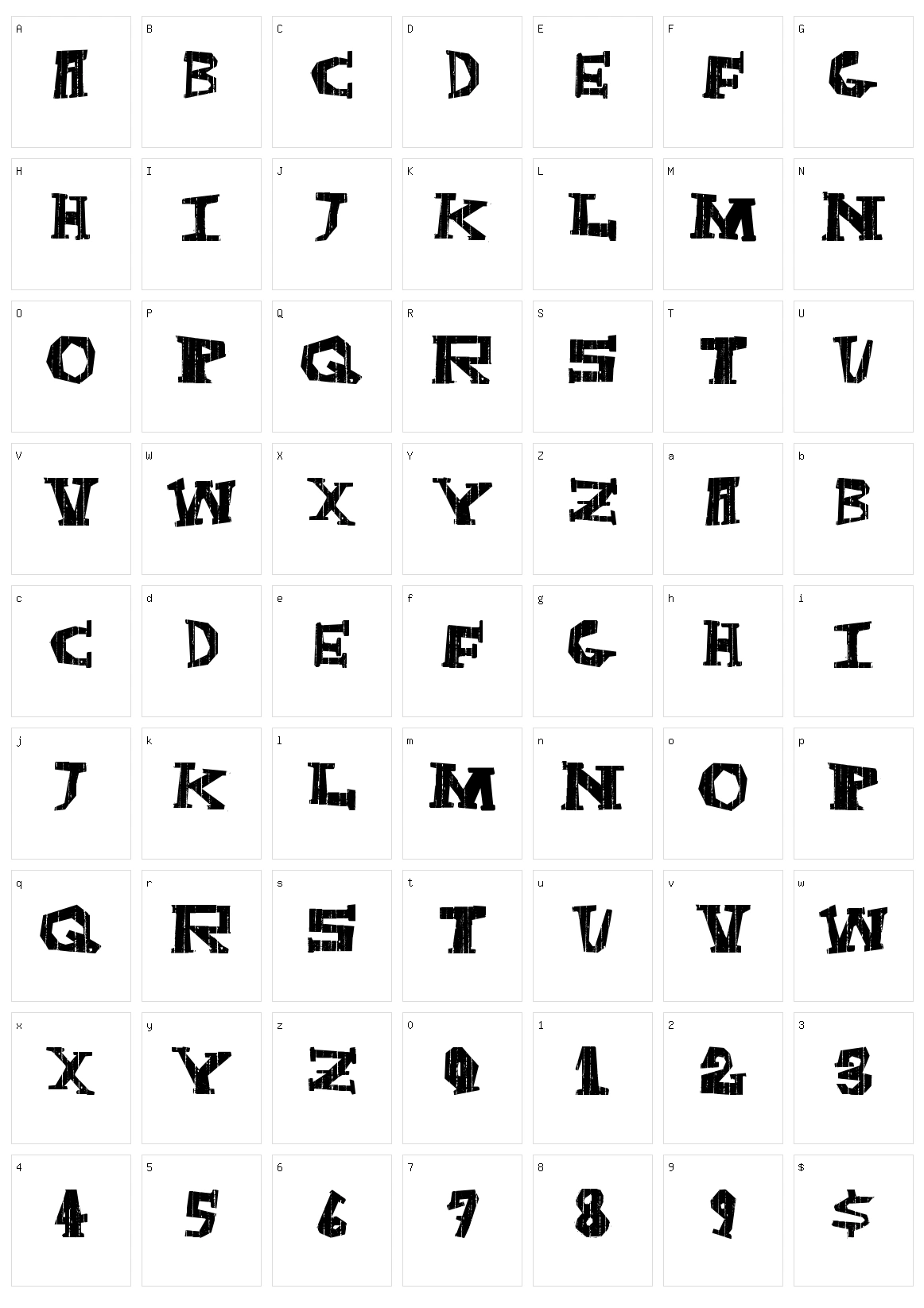
The free font Dark Box is carefully designed by Xerographer Fonts, showcasing a thoughtful balance of creativity and usability and falls under the Cartoon font style. When you download the ZIP file, it contains only 112.91 KB of font files, making it lightweight and quick to download. Please review the license details below to understand permitted usage and distribution rights. If license information is not available, we recommend using this font for personal projects only or contacting the author directly for commercial usage permissions.